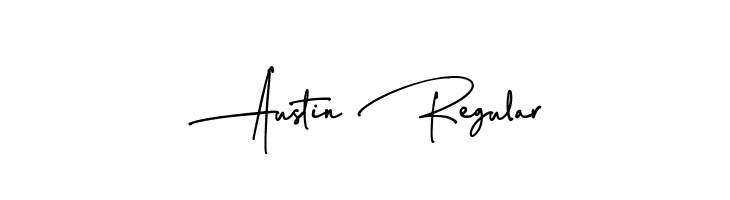
A sleek, modern, and italic font with thin strokes and open spacing.
A cursive, handwritten-style font with elegant, flowing characters.
A textured, hand-drawn font with a playful and artistic style.
A bold, italicized font with a gradient effect and dynamic, modern style.
A flowing, elegant cursive script font with smooth connections and stylish flair.
A playful, hand-drawn font with rounded, bubbly characters.
A modern, geometric sans-serif font with medium contrast and balanced proportions.
A playful, handwritten font with decorative dots and consistent stroke width.
A futuristic, angular font with bold, geometric shapes.
A clean, modern, and condensed sans-serif typeface with an extra light weight.
设计师偏爱 Typo Style Thin Demo Italic, Destiny-Light, JanzenPersonalUseRegular, Opus Mundi Gradient Italic and Magelove,因为其造型干净、适用范围广—— 从品牌识别到落地页、海报都能胜任。